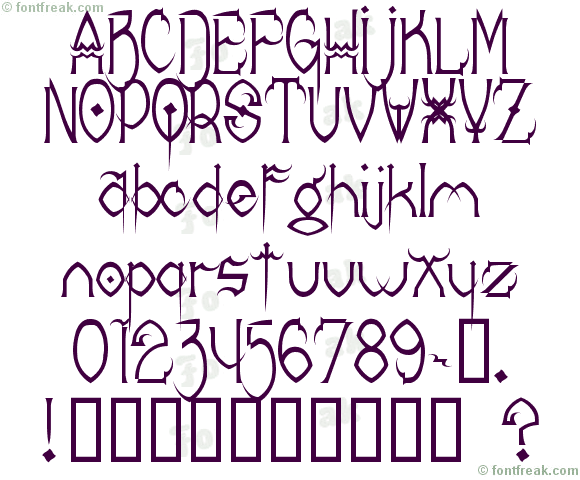
Donree's Claws
Donree's Claws by Chad Savage is a distinctive decorative font that captures attention with its unique style. This freeware typeface features bold, angular letters characterized by sharp edges and playful curves, offering a striking visual appeal. The stroke weight varies throughout the characters, creating an engaging contrast that enhances its decorative quality. The overall spacing is well-balanced, allowing for clarity and readability while maintaining its artistic flair. The font includes whimsical elements, such as pointed terminals and unexpected flourishes, making it a standout choice for creative projects.
This font is particularly well-suited for use in various contexts. Its bold and playful design makes it ideal for movie posters, where capturing attention is crucial. Additionally, Donree's Claws can add a unique touch to Halloween-themed invitations or events, embodying a fun yet slightly eerie vibe. Graphic designers may find it useful for creating eye-catching logos or branding materials, especially for businesses within the entertainment and arts sectors. Restaurant menus can also benefit from this font, giving a lively and imaginative feel that can enhance the dining experience.
Targeted towards graphic designers, small business owners, and content creators, Donree's Claws offers an opportunity to infuse creativity into their projects. The font’s playful nature invites experimentation, making it perfect for those looking to make a bold statement.
What sets Donree's Claws apart is its ability to blend whimsy with sophistication, making it a versatile choice for a variety of design needs. Its unique characteristics and free availability make the Donree's Claws font free download an enticing option for anyone looking to elevate their visual communication.